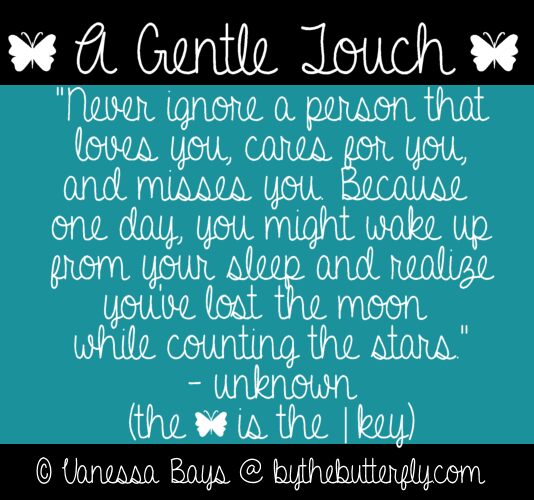
A Gentle Touch
A Gentle Touch by Vanessa Bays is a free handwritten font with an airy, continuous-line style. Tall loops and narrow, lightly irregular letters create a relaxed signature quality, with occasional overlaps that make each word feel casually drawn. Its strokes remain slender from end to end.
Its intimate penmanship can soften wedding invitations and personal stationery, yet its broad sweeping joins also suit fashion editorials and music artwork. For boutique branding, the long looping forms can become a recognizable part of a label or product identity rather than ordinary supporting text.